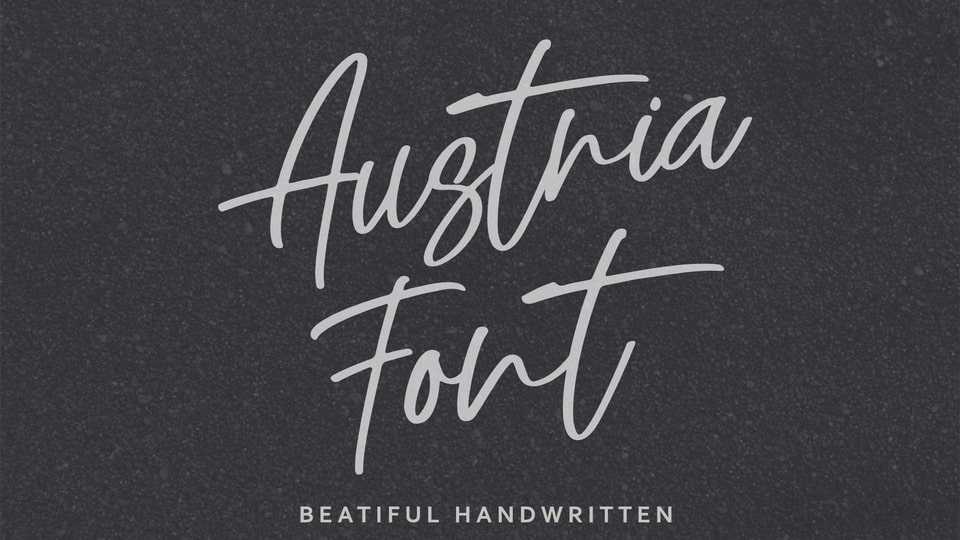
Download Austria font, a handwritten script inspired by natural and aesthetic hand touches. Austria font is flexible enough for web and print use and can be used in a wide variety of projects
Designer: Nestypefont